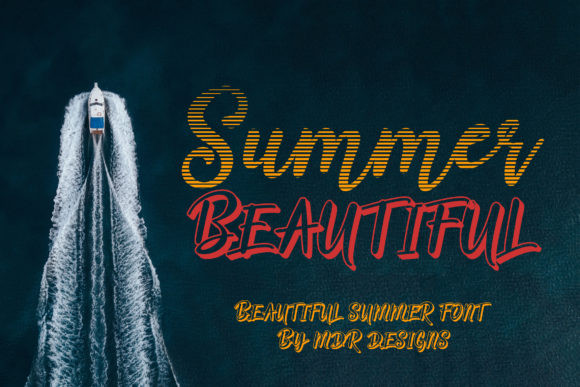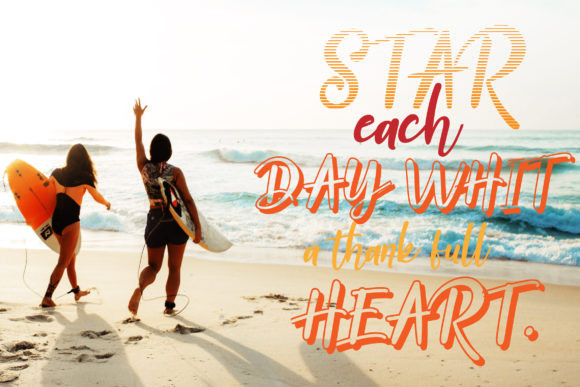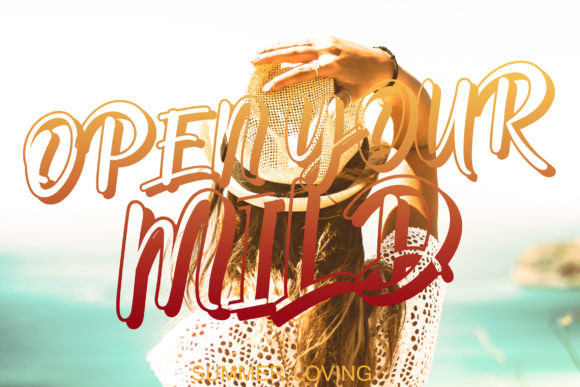
Summer Beautiful Font
Summer Beautiful is a unique and incredibly interesting display font. Fall in love with its incredibly versatile style and use it to create spectacular designs!